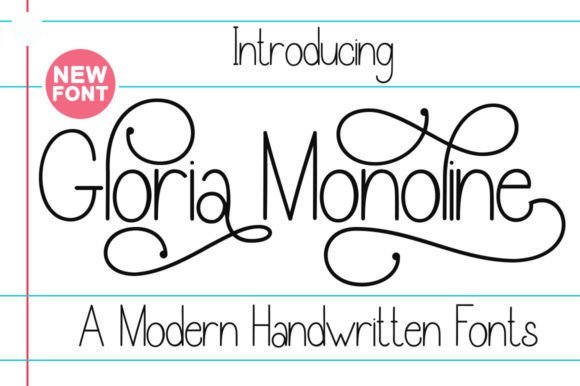
The Perfect Blend of Casual Charm and Creative Expression
Have you ever stumbled upon a font that makes you feel like you’re holding a brush, not a mouse? For designers, there’s nothing quite like the thrill of discovering a font that sparks creativity and inspires new ideas. It was one of those moments when I first laid eyes on the Gloria Monoline Font. Its neat and casual handwritten style has a way of bringing a touch of warmth to any project.
Whether you’re crafting a digital design, creating a presentation, or making a heartfelt greeting card, the Gloria Monoline Font has the potential to become your new favorite go-to font. Its versatility and charm make it an invaluable asset for designers looking to add a personal touch to their work.
With its effortless elegance, the Gloria Monoline Font is sure to elevate your creative projects and leave a lasting impression on your audience.
Gloria Monoline Font Key Features
- Font Style: Gloria Monoline is a modern monoline script font, ideal for titles, headings, and decorative text.
- Character Count: The font contains a wide range of characters, including uppercase and lowercase letters, numbers, punctuation marks, and special characters.
- Unique Characteristics: Gloria Monoline features a distinctive monoline design, where the width of the strokes remains consistent, giving the font a unique and elegant appearance.
Gloria Monoline Font Review
I’ve been working with Gloria Monoline Font for a few projects now, and I’m excited to share my honest thoughts on this unique font.
- Monoline style**: Gloria Monoline’s monoline style is a standout feature that sets it apart from other fonts. The consistent thickness throughout the strokes creates a beautiful, elegant look that’s perfect for titles and headings.
- High legibility**: The font is surprisingly easy to read, even at smaller sizes, which is a testament to its well-designed letterforms.
- Versatility**: Gloria Monoline works well in a variety of contexts, from digital interfaces to print materials, making it a versatile choice for designers.
- Limited language support**: Unfortunately, Gloria Monoline only includes a basic set of Latin characters, which may limit its use in non-English projects.
- No bold or italic variations**: While the font’s monoline style is beautiful, the lack of bold or italic variations can make it feel a bit one-dimensional in certain situations.
Gloria Monoline is a beautiful font that excels in its unique monoline style and high legibility. While it has some limitations, it’s still a great choice for designers looking for a stylish, elegant font. With some additional variations and language support, it could be even more versatile. As it stands, I’d recommend Gloria Monoline for projects where you want to add a touch of sophistication and elegance.
Tips for Getting the Most Out of Gloria Monoline Font
Use Gloria Monoline Font for titles, headings, and other display text to add a touch of elegance and sophistication.
Combine Gloria Monoline Font with other fonts to create a unique and visually appealing design.
Gloria Monoline Font is ideal for:
- Magazine and newspaper headlines
- Brand identity and logo design
Alternatives to Gloria Monoline Font
Great Vibes is a modern calligraphy font with a whimsical touch, suitable for creating eye-catching headings and titles. It’s ideal for wedding invitations, greeting cards, and other design projects that require a touch of elegance and sophistication.
Comparison to Gloria Monoline Font: While Gloria Monoline Font has a more refined and classic feel, Great Vibes Font has a more playful and artistic vibe. Great Vibes Font is better suited for projects that require a more casual and creative approach.
Is the Gloria Monoline Font suitable for use in print materials?
Yes, the Gloria Monoline Font is designed to be legible at various sizes and resolutions, making it suitable for use in print materials, such as business cards, brochures, and posters. However, it’s essential to test the font at the desired size and resolution to ensure optimal legibility and quality.